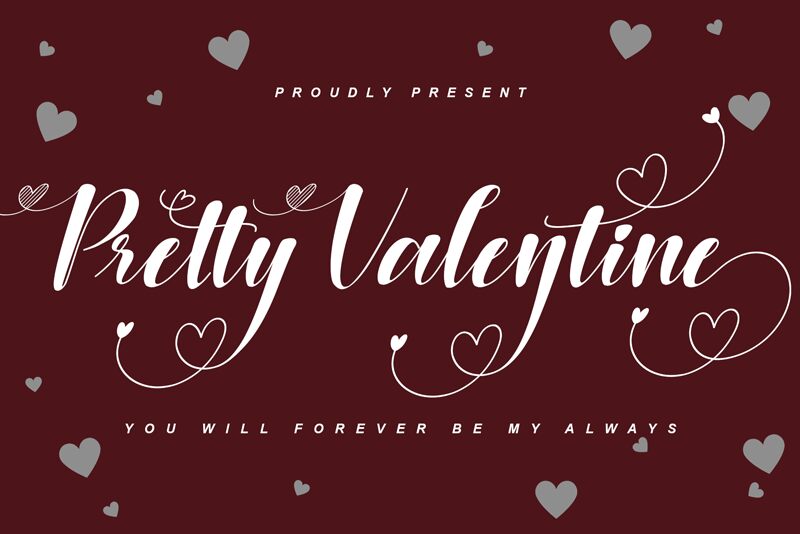
Pretty Valentine
Celebrate love with the charming and romantic Pretty Valentine font by Sarif Letter. This holiday typeface features a delightful valentine script style that will add a touch of whimsy to any project. The semi-bold weight provides just enough boldness to make your message stand out, without being too heavy-handed. This font is perfect for creating personalized greeting cards, beautiful wedding invitations, or adding a romantic flair to your social media graphics and blog posts. Let Pretty Valentine be your go-to font for all things love-related!